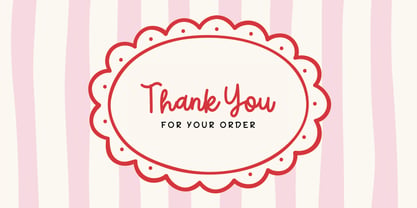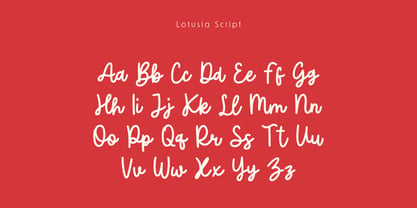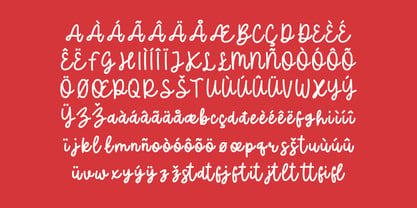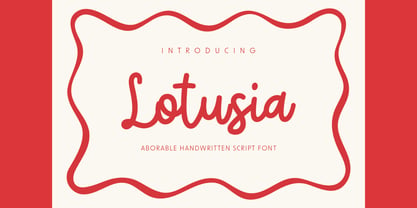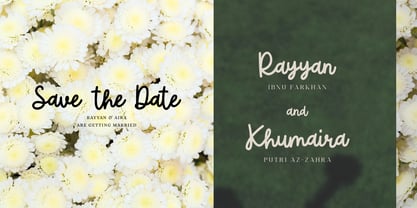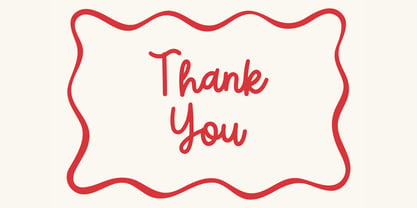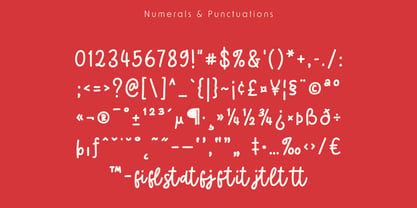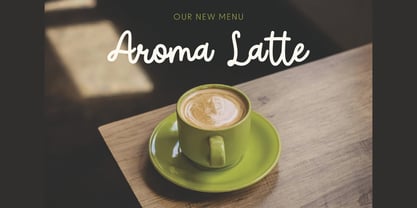
Lotusia Script
von Pikgura Type
Die Schriftfamilie Lotusia Script wurde von Acmarsita Caerola entworfen und von Pikgura Type veröffentlicht. Lotusia Script enthält 1 Stile. Mehr über diese Familie
Introducing Lotusia Script — a bold and playful handcrafted script font that radiates personality. Each stroke dances with energy and joy, featuring thick curves and a flowing style that imparts a warm, handmade feel to every word. This font is ideal for designs that aim to be fun, creative, and vibrant. Lotusia Script includes complete alphabets, numbers, and basic punctuation, making it perfect for a variety of applications such as posters, greeting cards, logos, and packaging. Let your ideas flourish with Lotusia’s cheerful charm, transforming every project into a bright, eye-catching masterpiece!
Designer: Acmarsita Caerola
Foundry: Pikgura Type